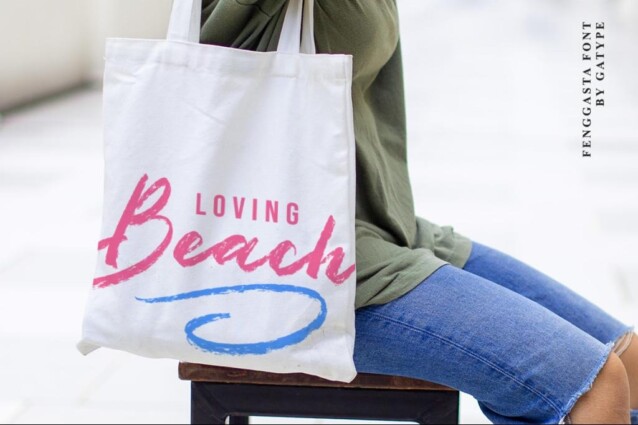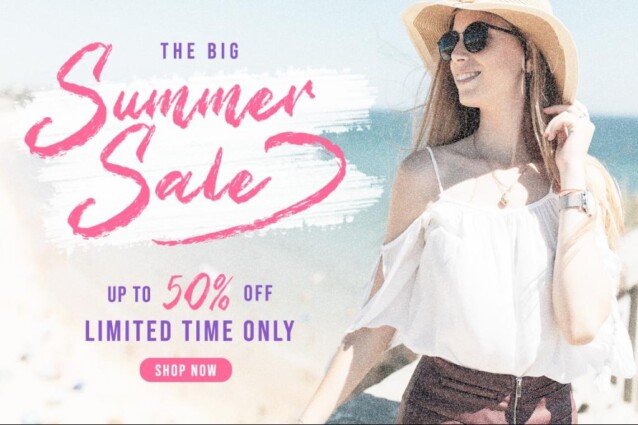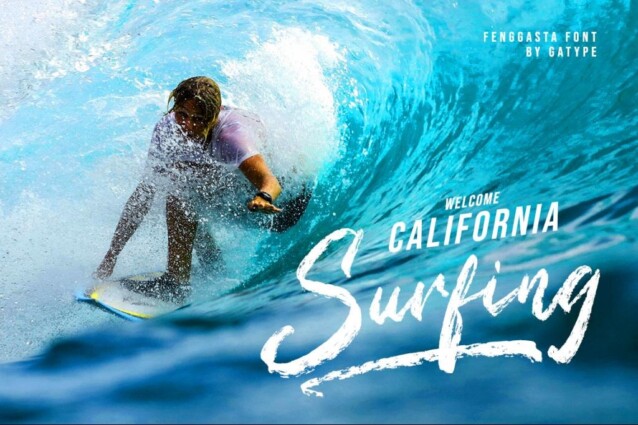
Fenggasta Font is a unique textured brush typeface, because this brush font is made digitally. This font is very suitable for a variety of places such as clothing, poster, tittle books, stationery designs, quotes, branding, logos, invitations, greeting cards, t-shirts, packaging designs and more.